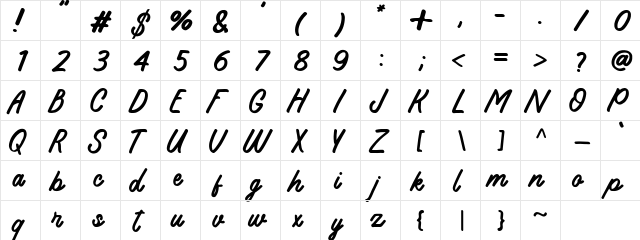
Koeltoerals Regular Font Preview
Koeltoerals Regular
Koeltoerals Regular Font Details
Design Context for Koeltoerals Typeface
Koeltoerals is a composed and adaptable typeface that performs quietly and consistently across a wide range of design contexts.